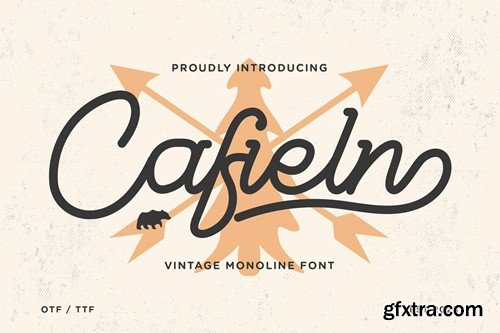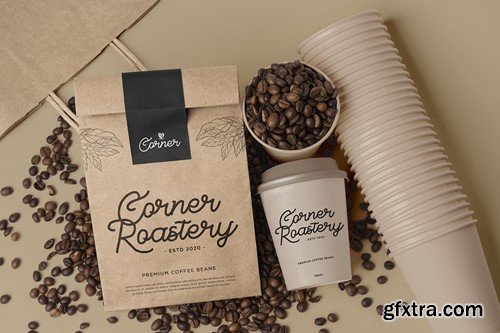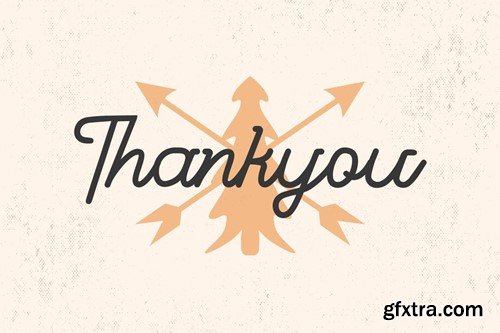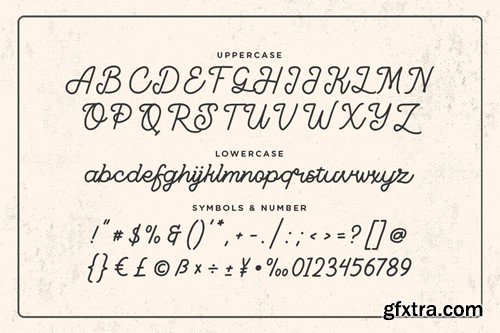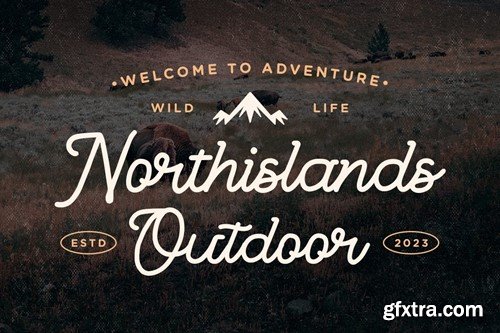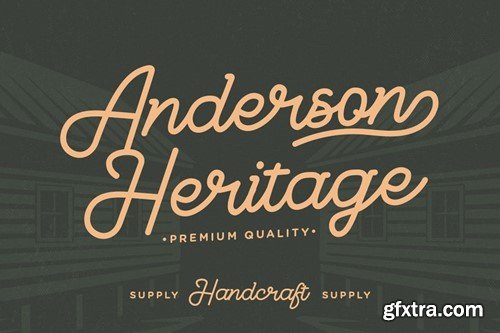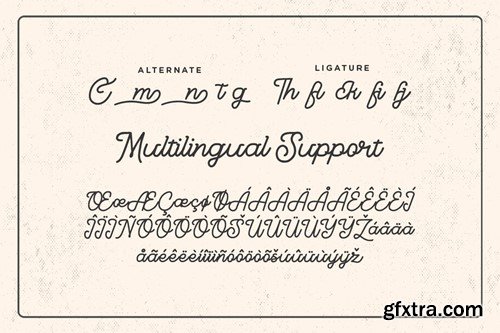
Cafieln - Vintage Monoline Font PGZJ3VK
Cafieln - Vintage Monoline Font
Introducing "Cafieln" - a vintage monoline font that encapsulates the timeless charm of retro design with its elegant and nostalgic aesthetics.
With its smooth and consistent lines, "Cafieln" brings a sense of nostalgia and sophistication to any project. Each character is carefully crafted to evoke the essence of vintage typography, making it perfect for branding, packaging, signage, and more.
Embrace the classic appeal of "Cafieln" as it effortlessly enhances your designs. Whether you're creating vintage-inspired logos, elegant invitations, nostalgic posters, or charming social media graphics, this font will captivate your audience with its timeless and versatile style.
Step into a world of vintage elegance with "Cafieln" and let your designs evoke the nostalgia of yesteryears.
Features:
– Uppercase – Lowercase – Symbols & Punctuation – Numeral – Ligature – Alternate – Multilingual Support